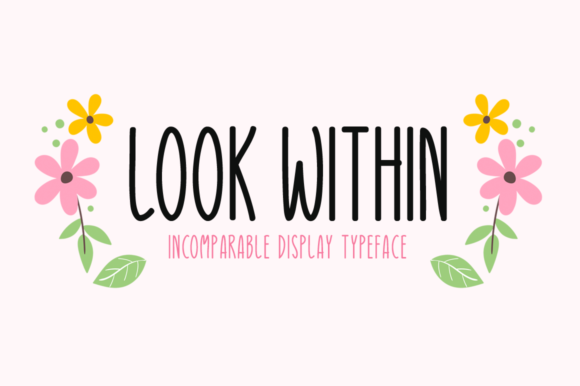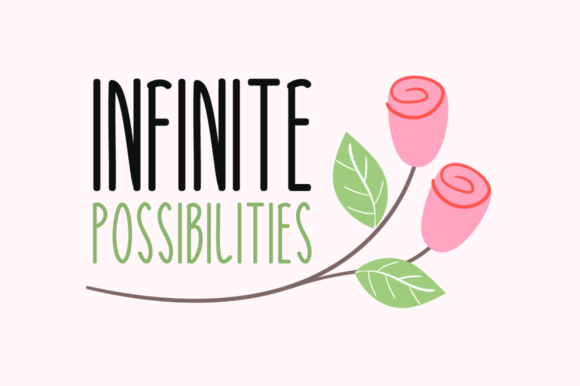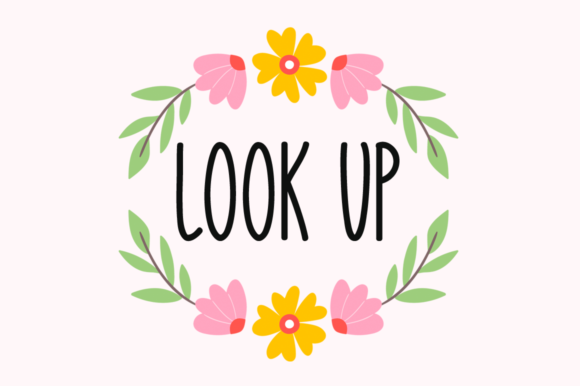
About Look Within Font
Look Within is an elegant and slender handwritten font that brings a unique touch to any design project. Here are some key features that make Look Within stand out:
Tall and Thin Design: The tall and thin letterforms of Look Within create an elongated and graceful appearance. This characteristic adds a sense of elegance and sophistication to the font, making it an ideal choice for projects that require a refined and delicate touch.
Distinctive Charm: Look Within’s unique style sets it apart from other handwritten fonts. Its slender and elongated letters exude a sense of poise and grace, making it an attention-grabbing font that captivates viewers.
Versatility: Despite its tall and thin design, Look Within is a versatile font that can be used in various design contexts. Whether you’re creating wedding invitations, quotes, social media graphics, or any other creative project, Look Within adds a distinct charm that enhances the overall visual appeal.
Standout Typography: When used in headlines or titles, Look Within demands attention and creates a standout effect. Its tall and slender appearance draws the eye and adds a touch of sophistication to any typographic composition.
Clean and Neat Look: The clean and smooth lines of Look Within give it a polished and neat appearance. This makes it suitable for both digital and print media, ensuring your designs look professional and refined.
Emotional Connection: Look Within’s elegant and delicate style conveys a sense of intimacy and emotion. It brings a personal touch to your designs, establishing a connection with your audience and evoking a sense of warmth and sentiment.
Inviting Aesthetic: Look Within’s tall and thin design invites readers to explore the text further, making it an engaging font choice for various design projects. It encourages viewers to look closer and discover the message within.
Incorporate Look Within into your creative ideas, and notice how it elevates your designs with its tall and thin elegance. Whether you’re aiming for an elegant and sophisticated look or seeking to establish an emotional connection with your audience, Look Within is a font that will make your designs stand out with its distinct charm and unique appeal.